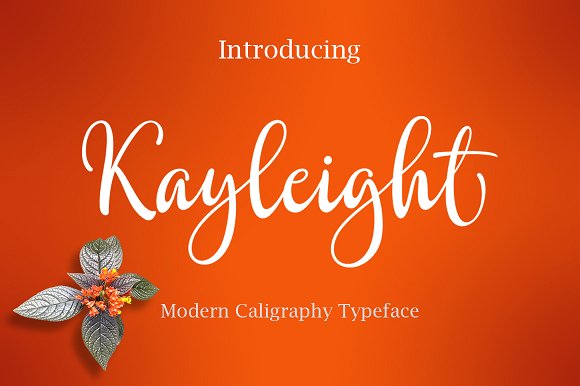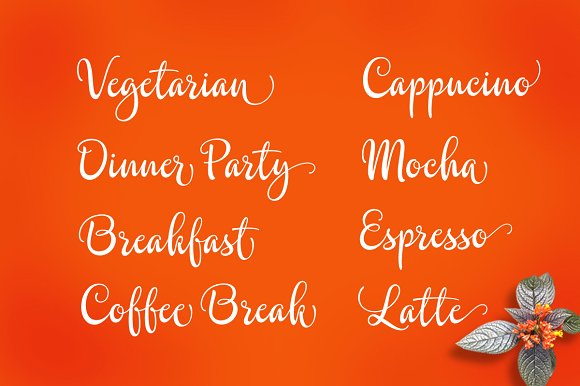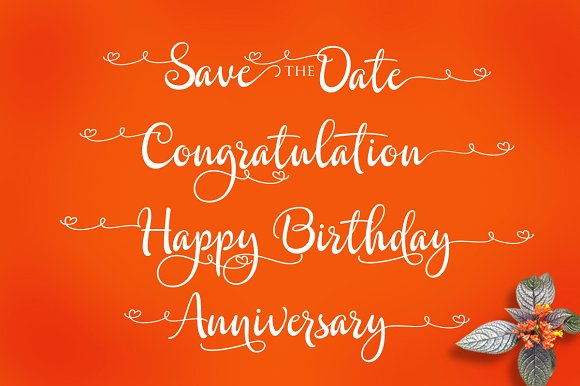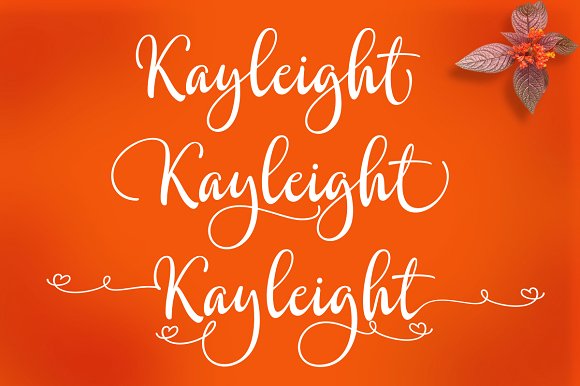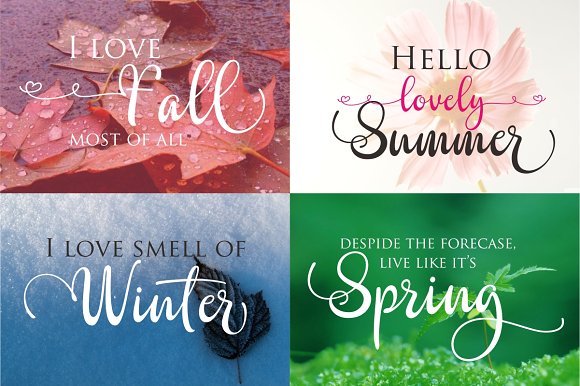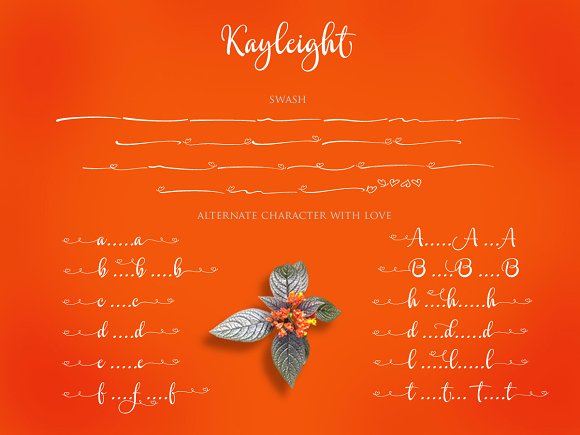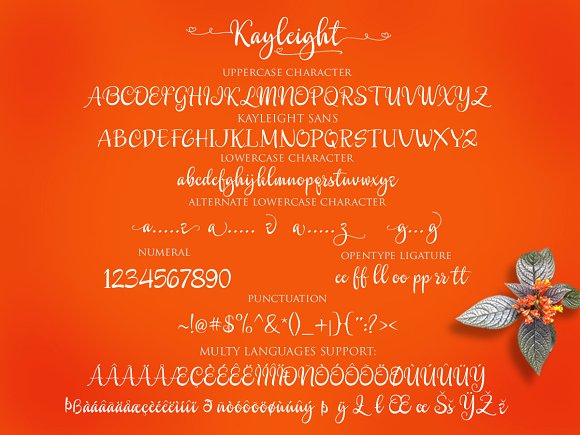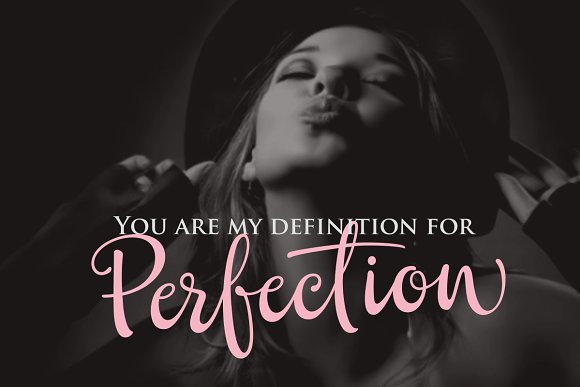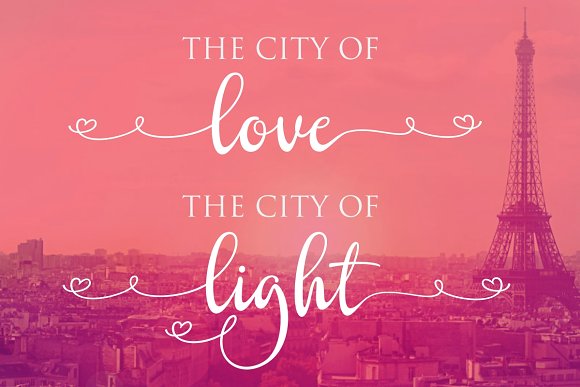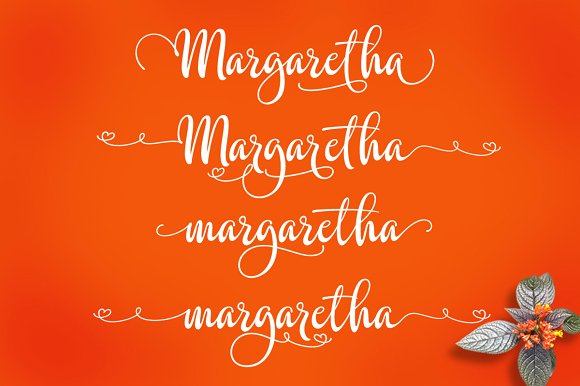
HomeScript FontsKayleight Font Script Fonts Kayleight Font FacebookXPinterestWhatsApp Kayleight Font Poster 2 Kayleight Font Poster 3 Kayleight Font Poster 4 Kayleight Font Poster 5 Kayleight Font Poster 6 Kayleight Font Poster 7 Kayleight Font Poster 8 Kayleight Font Poster 9 Kayleight Font Poster 10 Kayleight Font Poster 11 About Kayleight Font Kayleight is a small family that comes packed with more than 460 hand drawn characters. DOWNLOAD NOW People also explored Easterday Monogram Font Crowfeather Julians Signature Font Peaceful Island Font Creative Signature Font Rose Flower Font Merry Bright Font Murthie Font Winter Sunday Font 410 0 TagsKayleight Font Previous articleMagnificent FontNext articleExellentia Font LEAVE A REPLY Cancel reply Comment: Please enter your comment! Name:* Please enter your name here Email:* You have entered an incorrect email address! Please enter your email address here Website: Save my name, email, and website in this browser for the next time I comment. Personal Use Free Vanity Personal Use Free Read more about this font Starry Cakes Personal Use Free Read more about this font Kanza Personal Use Free Read more about this font Awkward Personal Use Free Read more about this font BLOG Best Fonts for T-Shirt Design – Top 2025 Picks In 2025, t-shirt design has become more than just fashion—it's a form of self-expression. Whether you're... Elegant Wedding Invitation Fonts – Handwritten & Script Fonts Free Fonts Risk: Why Free Fonts Can Be Dangerous for Designers Using Fonts in Digital Marketing: Tips to Strengthen Your Brand Identity